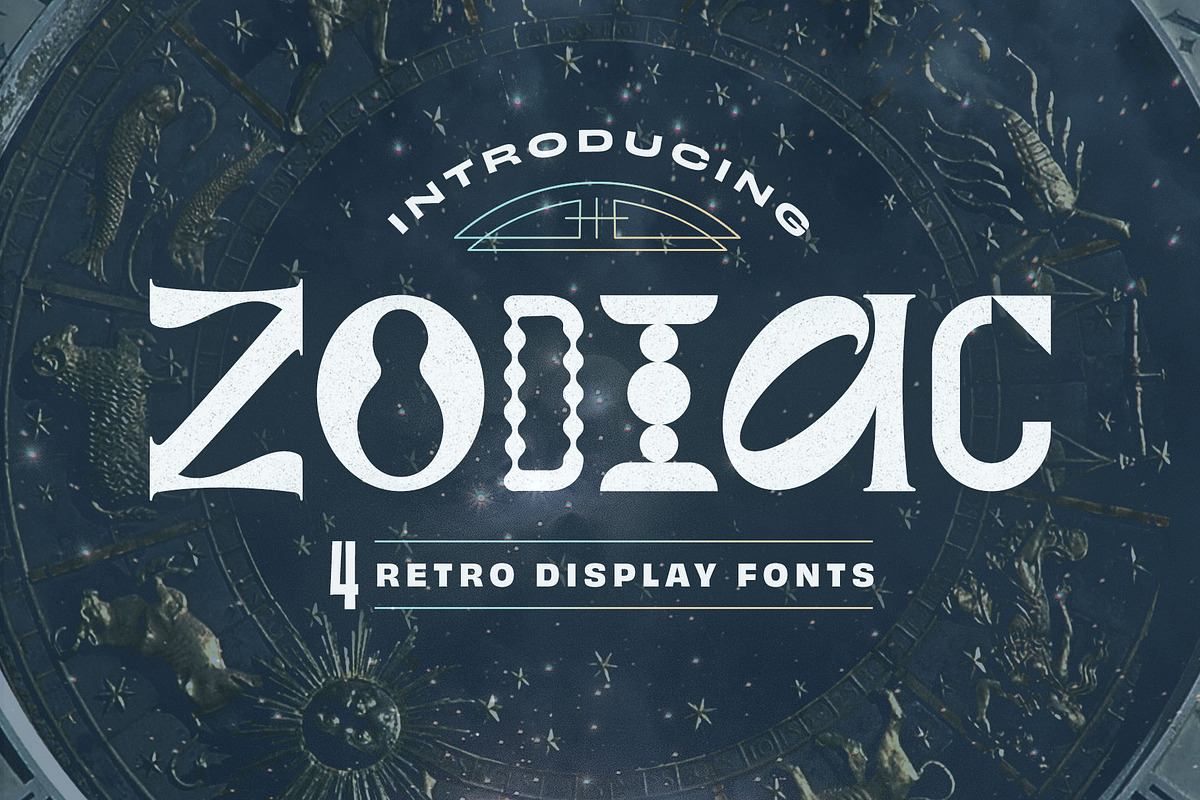
Zodiac - 4 Retro Display Fonts Free Download
Zodiac – 4 Retro Display Fonts Free Download
Zodiac – 4 Retro Display Fonts Free Download is a bold and nostalgic font collection inspired by vintage signage, astrology themes, and classic retro typography. Featuring four unique styles, this bundle is perfect for posters, T-shirt designs, branding, album art, and social media graphics that crave a throwback look with personality.
Each font in the Zodiac bundle brings its own retro flair—from groovy curves to sharp, stylized edges—allowing you to mix and match for stunning visual variety. Whether you're channeling 70s vibes, cosmic themes, or funky fashion trends, these fonts deliver timeless charm with a modern twist. You can download and test them for free, but a commercial license is required for any monetized or professional projects.
Add cosmic creativity to your designs with Zodiac – 4 Retro Display Fonts Free Download, and tap into the stars with fonts that are bold, stylish, and full of vintage soul. A must-have for designers who love all things retro and rad.